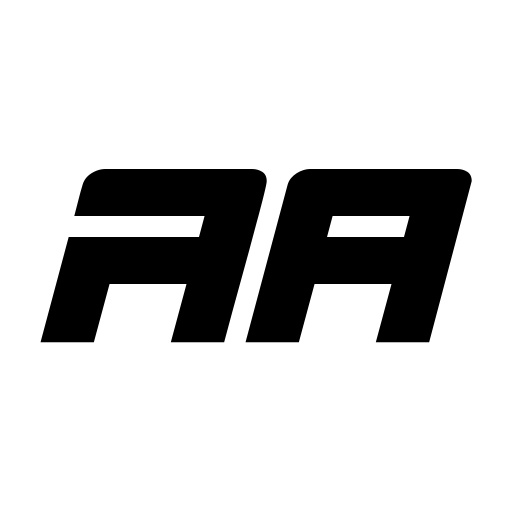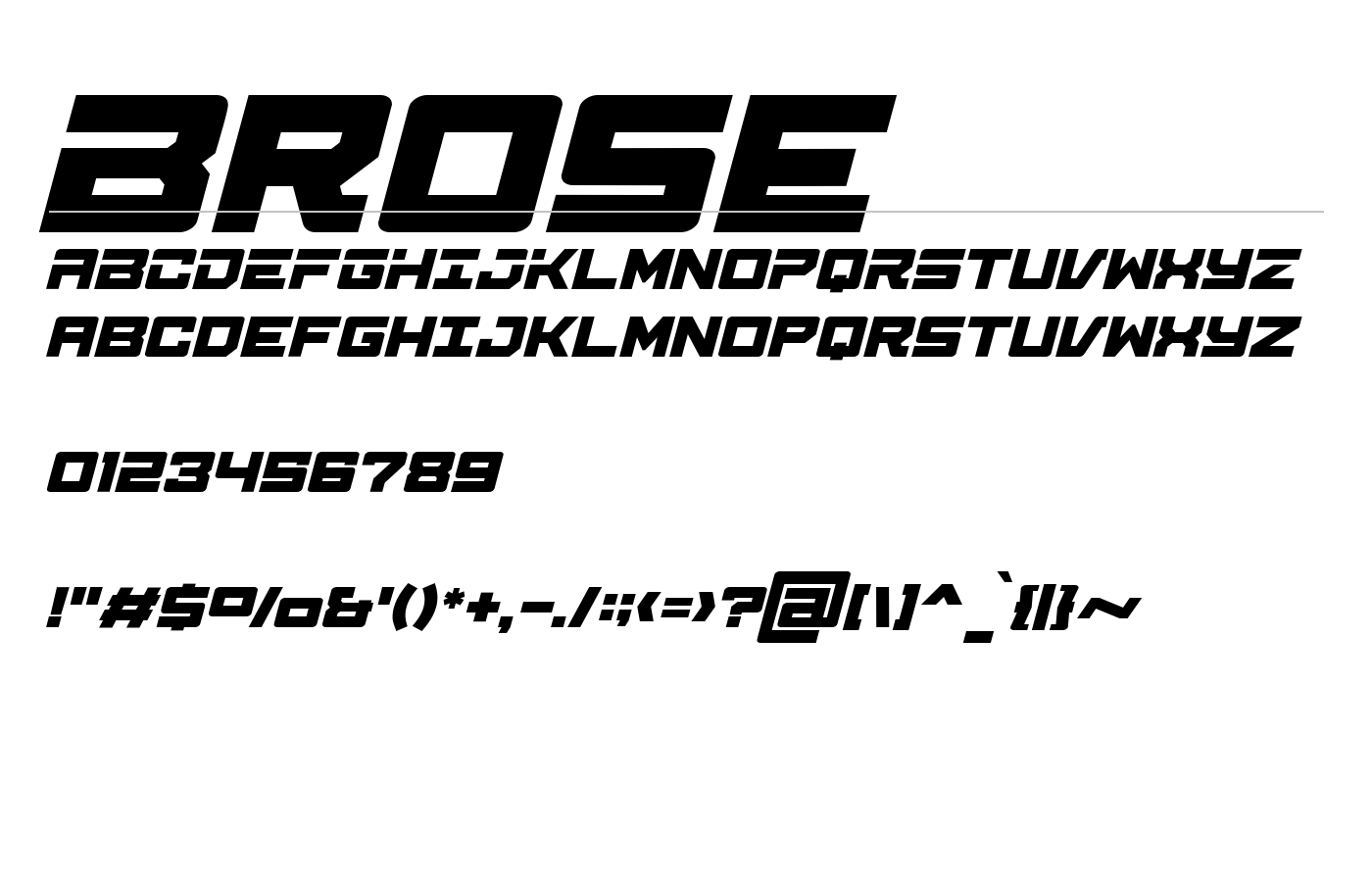
Brose is a bold, condensed sans serif font with a strong, sporty character and sharp, angular strokes that give it a dynamic and modern feel. Its uppercase-only design and slanted forms make it perfect for high-impact headlines, logos, and branding that require an energetic and futuristic edge. Ideal for sports, technology, and automotive industries, Brose stands out by combining aggressive style with clean readability.
Brose Font